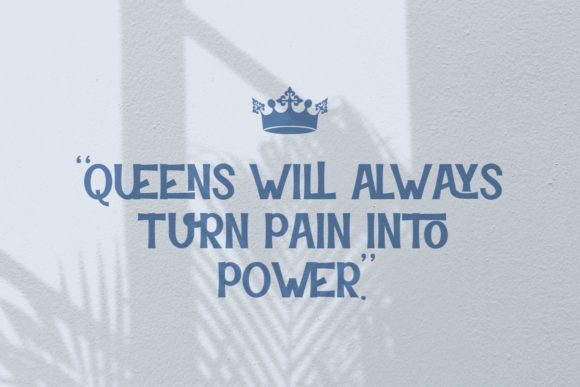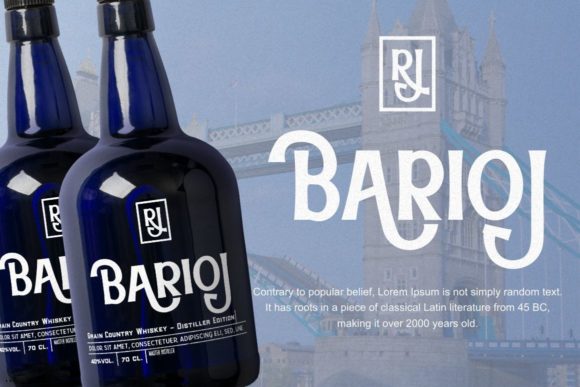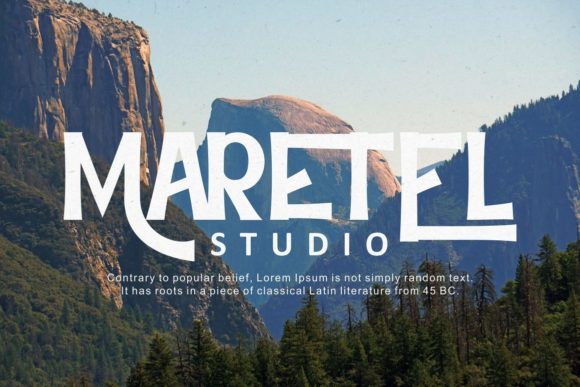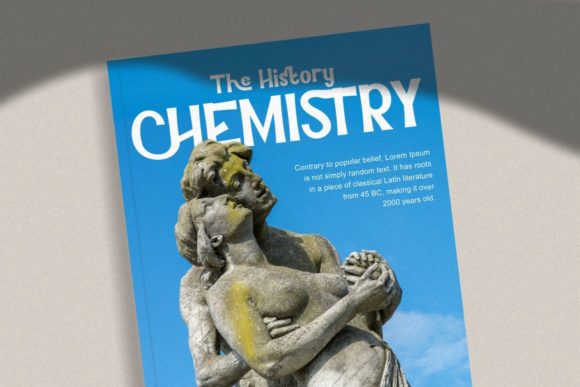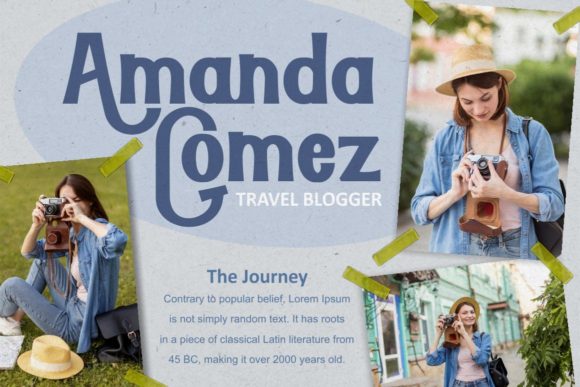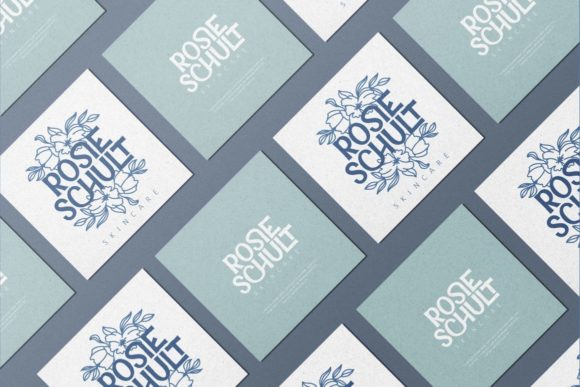
Introduction to Royal Lodge Font
Remember that moment when you’re working on a creative project and you’re stuck on finding the perfect font to bring your design to life? It’s frustrating, isn’t it? You scroll through page after page of fonts, but none of them seem to fit the vibe you’re going for. But what if I told you that there’s a font that can change all that?
Enter the Royal Lodge Font, a cool and bold display font that’s perfect for adding a touch of sophistication to your design. With its PUA encoding, you can access all the glyphs and swashes you need to give your project that extra oomph. Whether you’re working on a logo, a brochure, or a website, this font is sure to be a valuable addition to your design resource arsenal.
Key Features of Royal Lodge Font
- High-quality design resource suitable for various creative projects
- Unique characteristics: elegant, sophisticated, and regal aesthetic, making it perfect for luxury brands and high-end designs
- Can be used in a variety of design applications, including logos, invitations, and business cards
Honest Review: Royal Lodge Font
I recently had the chance to work with the Royal Lodge Font, and I must say it’s a great addition to any designer’s toolkit. The font is perfect for those looking to add a touch of sophistication and elegance to their creative projects.
What doesn’t: ⚠️ The font lacks a transparent background option, which can be a limitation for designers who need to overlay the font on a background image. Additionally, the font family is limited, which may not be suitable for larger design projects.
Overall, I’m impressed with the Royal Lodge Font. It’s a solid design resource that can elevate any creative project. While it has its limitations, the font’s high quality and customization options make it a great choice for designers looking for a reliable font.
- Perfect for adding elegance to creative projects
- High quality
- Limited font family
- Lacks transparent background option
The Royal Lodge Font is a high-quality design resource ideal for creative projects. It features a transparent background, making it easy to integrate into various design elements.
Tips for Getting the Most Out of Royal Lodge Font
To maximize the effectiveness of the Royal Lodge Font, use it in conjunction with high-contrast backgrounds and bold typography.
The Royal Lodge Font is ideal for use in branding, marketing materials, and creative projects requiring a sophisticated and elegant design aesthetic.
No, the Royal Lodge Font does not have a transparent background. It’s a solid font with a high-quality design that can be used in various design projects. If you need a font with a transparent background, you may want to consider other design resources available online.